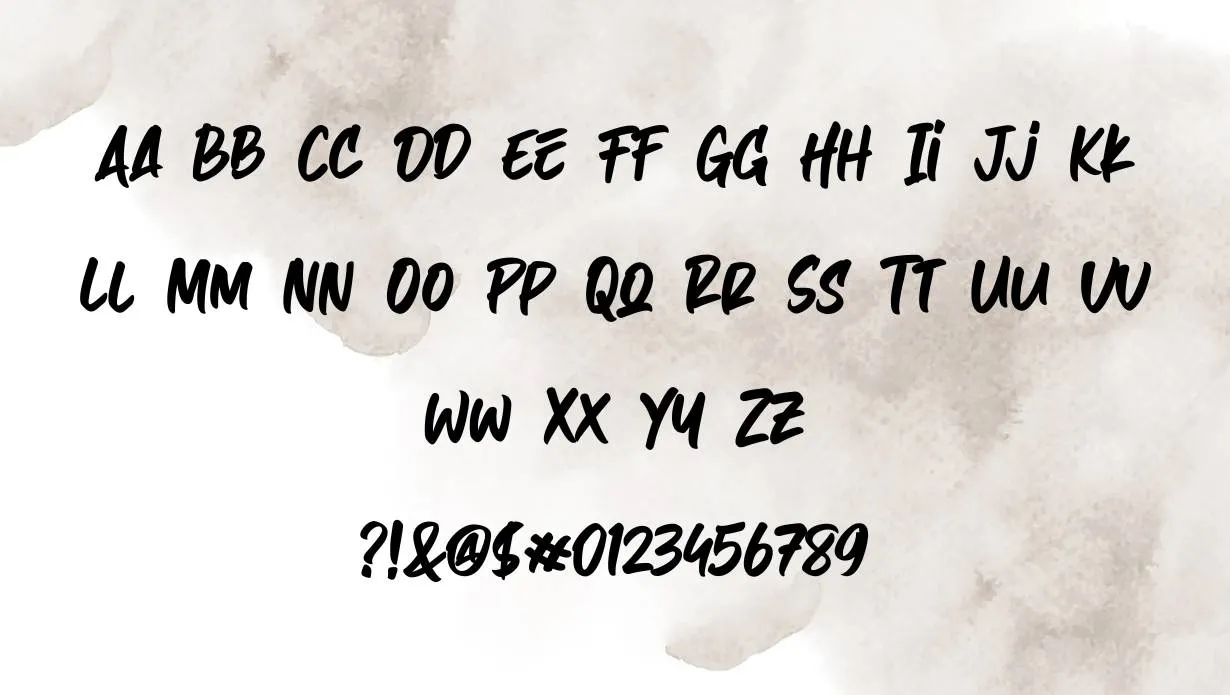
Hazard Stylish Marker Font is a dynamic and contemporary typeface known for its bold and expressive style. It is a brush font designed by ErgibiStudio. It’s an excellent choice for design projects that aim to make a statement, such as posters, headlines, or branding materials.
Hazard Stylish Marker Font Family
| Name | Hazard Stylish Marker Font |
| Designer | ErgibiStudio |
The font includes a comprehensive set of characters, encompassing uppercase and lowercase letters, numerals, punctuation, and various special characters. You can easily create wonderful projects by pairing it with allcaps font.